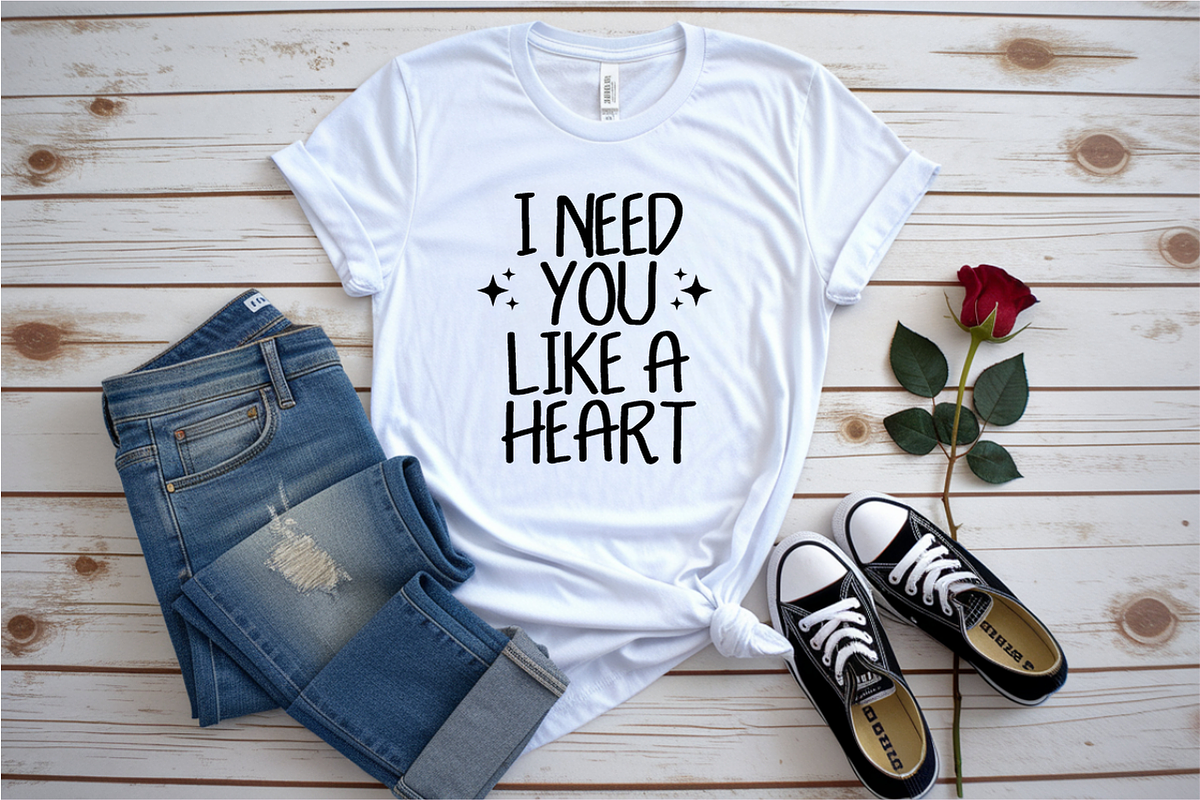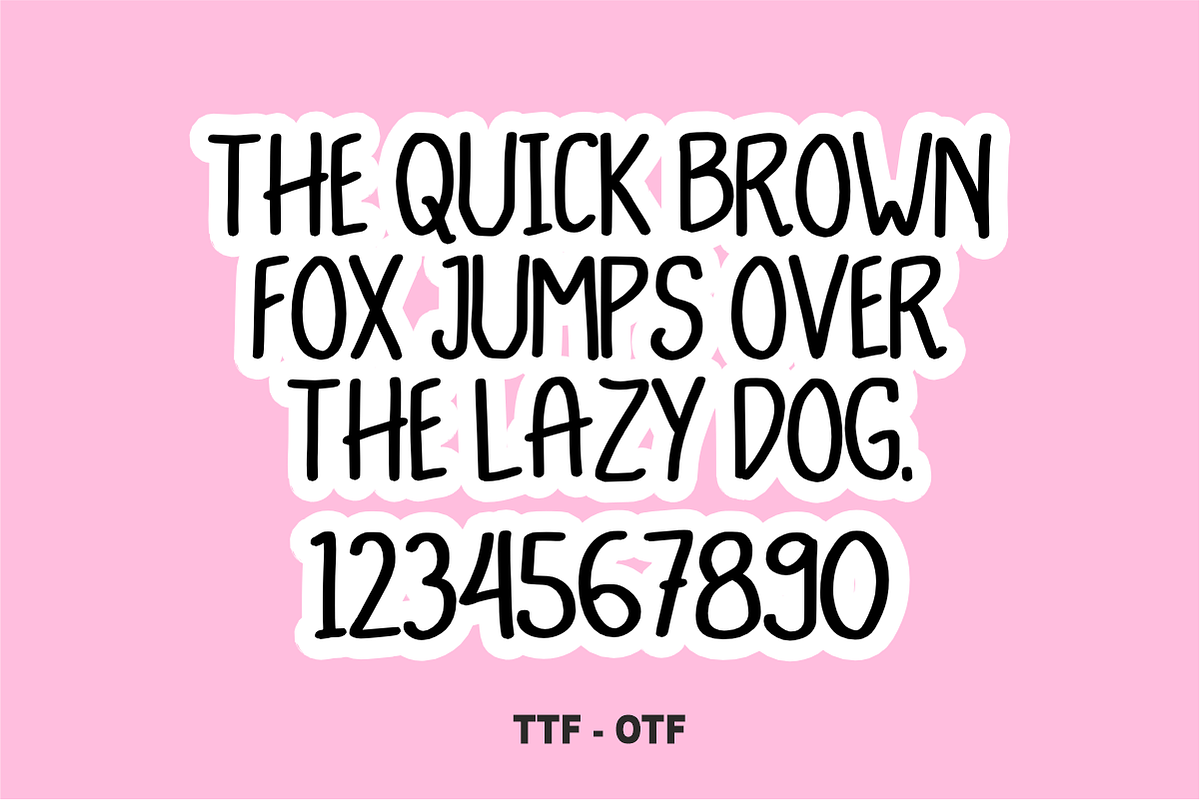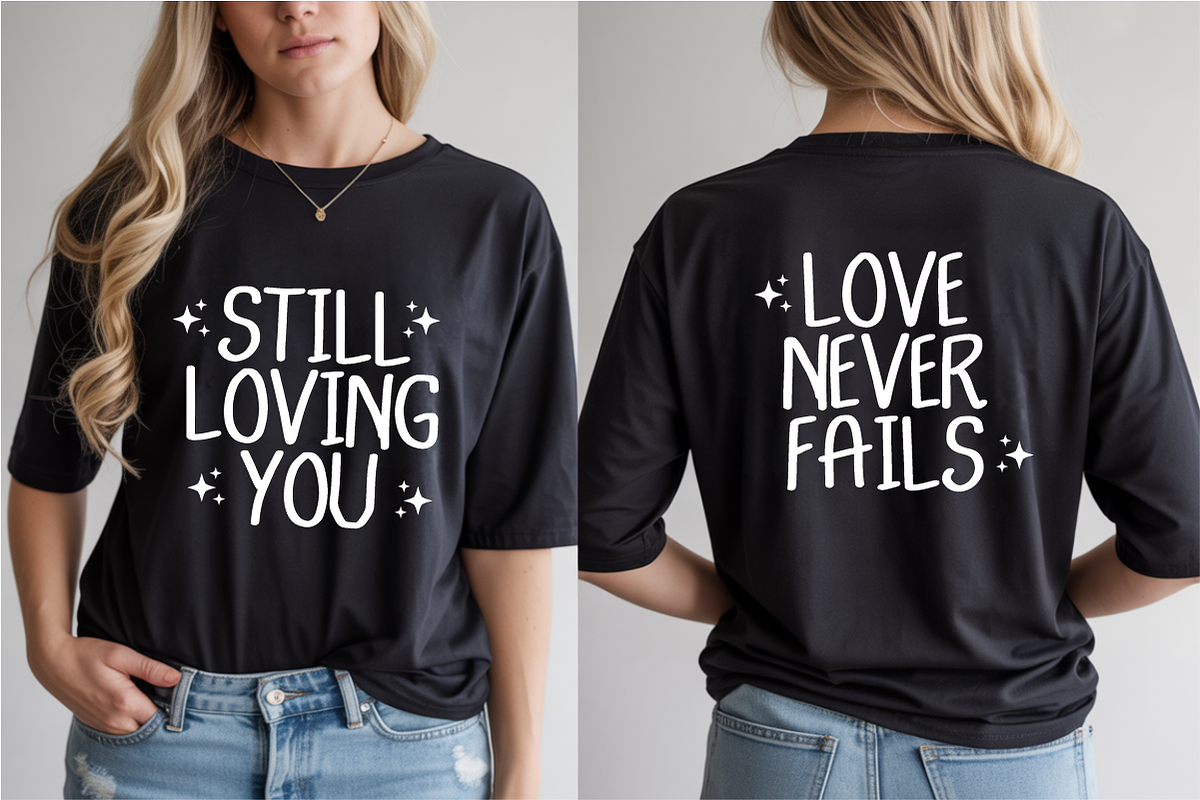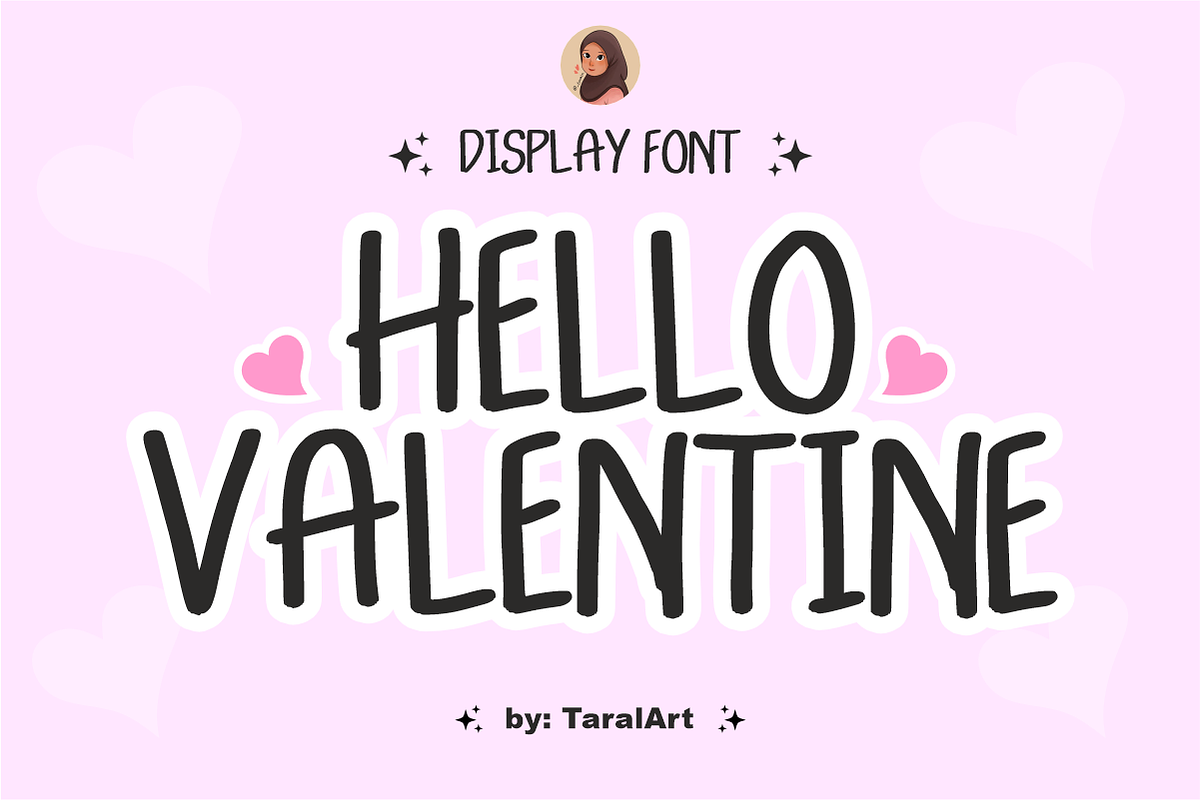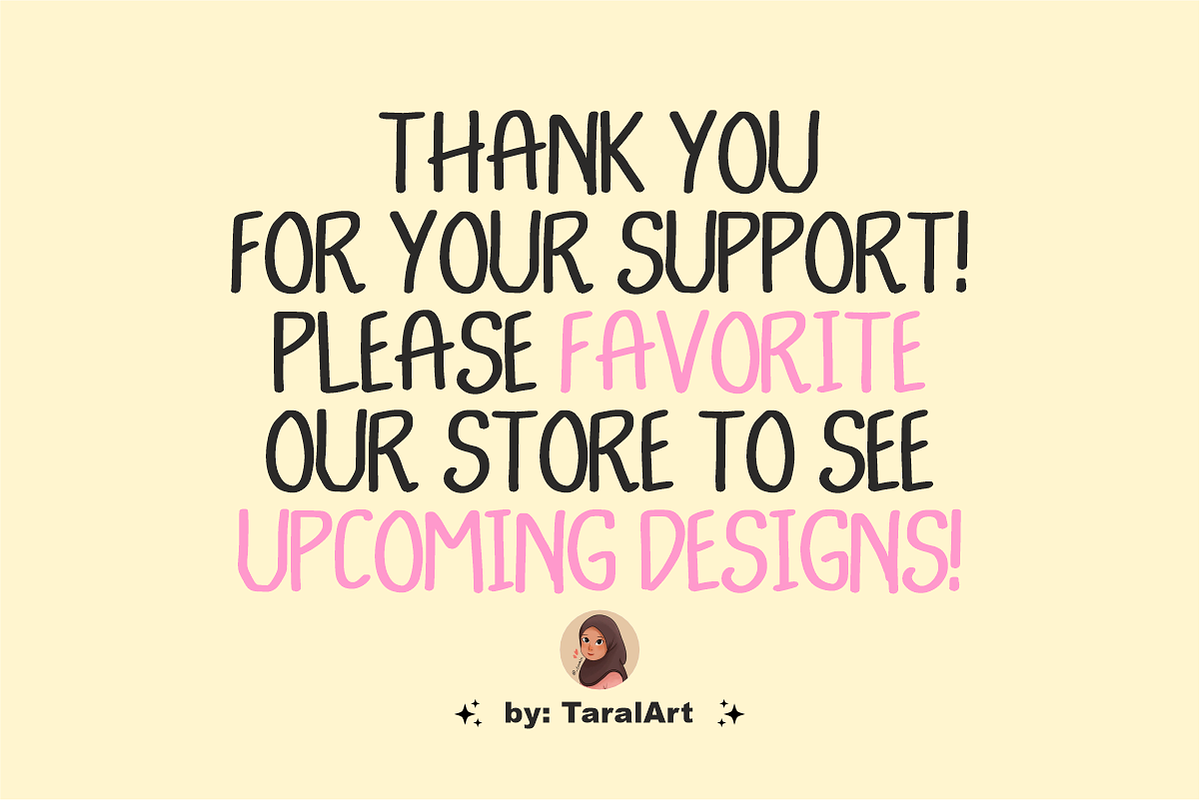
Hello Valentine - Cute Love Font
Hello Valentine is a sweet, tall handwritten display font that brings a playful, affectionate touch to your designs. Featuring charming hand-drawn lines, this versatile sans-serif font is perfect for holiday cards, romantic notes, and lovely crafts. Every character is cleanly vectorized to ensure flawless, crisp cutting on Cricut and Silhouette machines.
Uppercase Character Set
Numbers & Basic Punctuation
Ideal For:
Valentine’s Day cards, love letters, and wedding stationery
Custom die-cut stickers, enamel pins, and planner decals
Kids' apparel, baby onesies, and playful t-shirt prints
Social media quotes, holiday banners, and Canva templates
Classroom decorations, posters, and teacher resources
Cricut, Silhouette, and DIY vinyl crafting projects